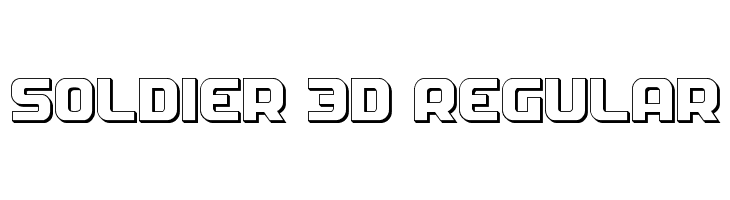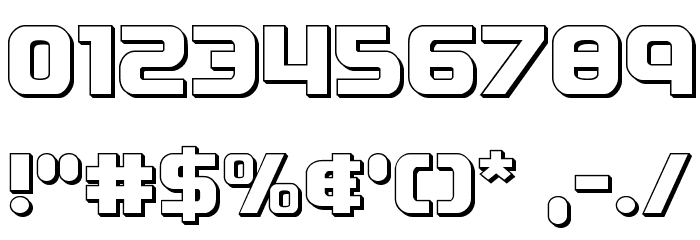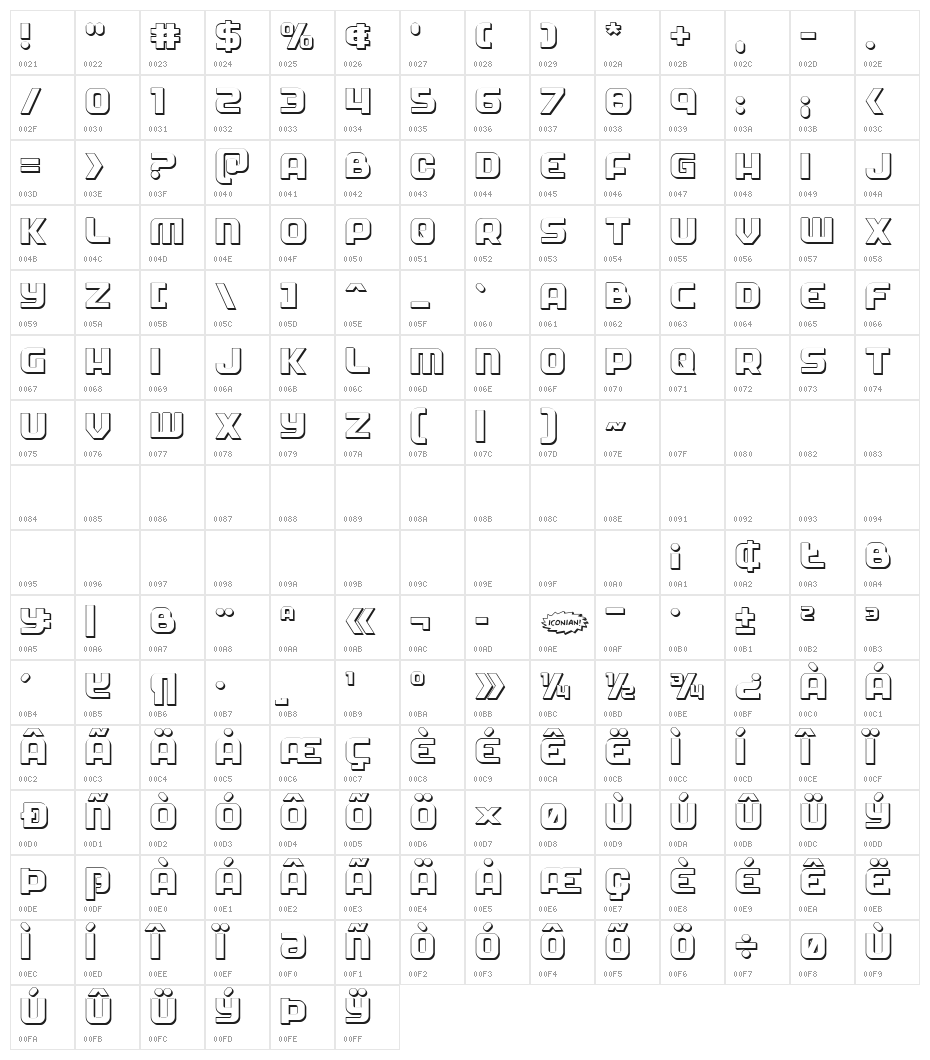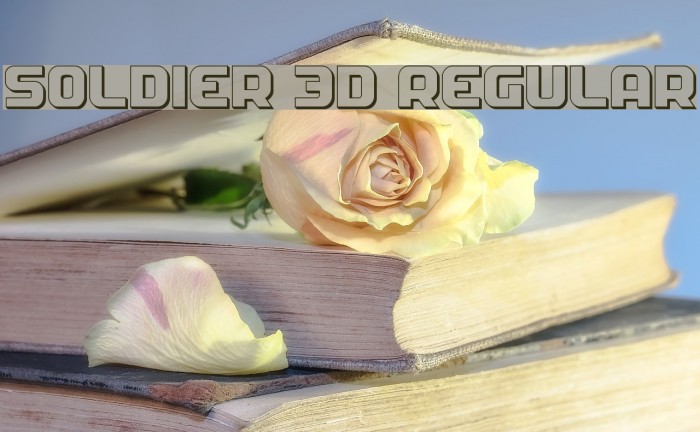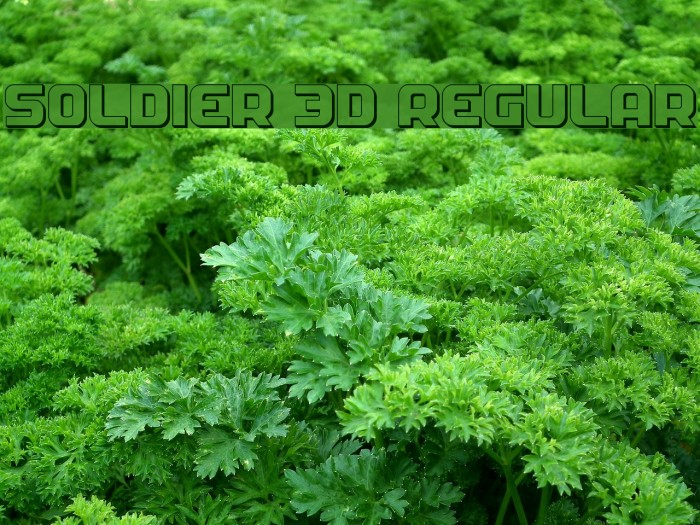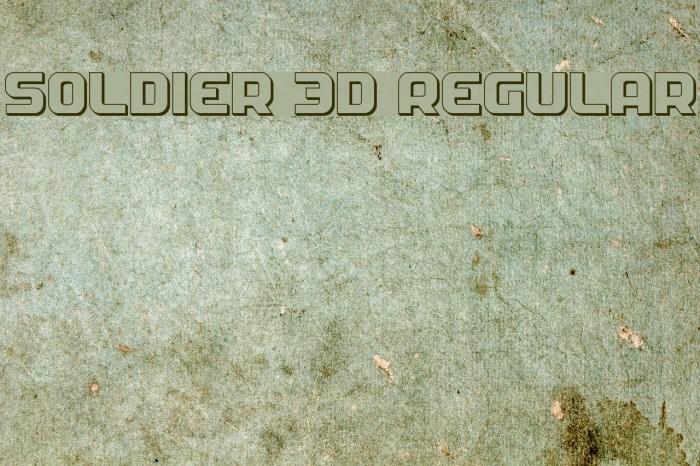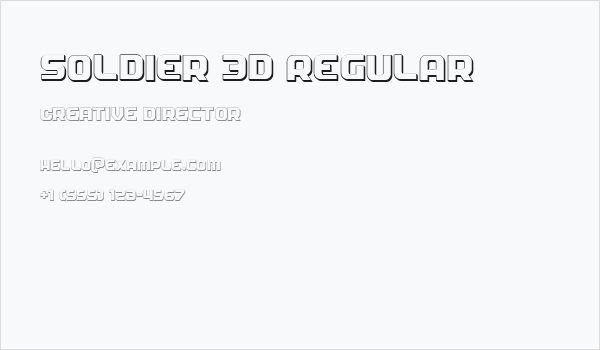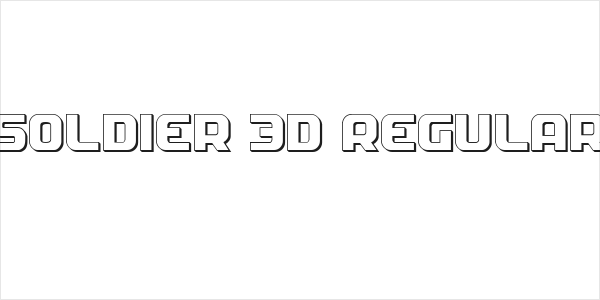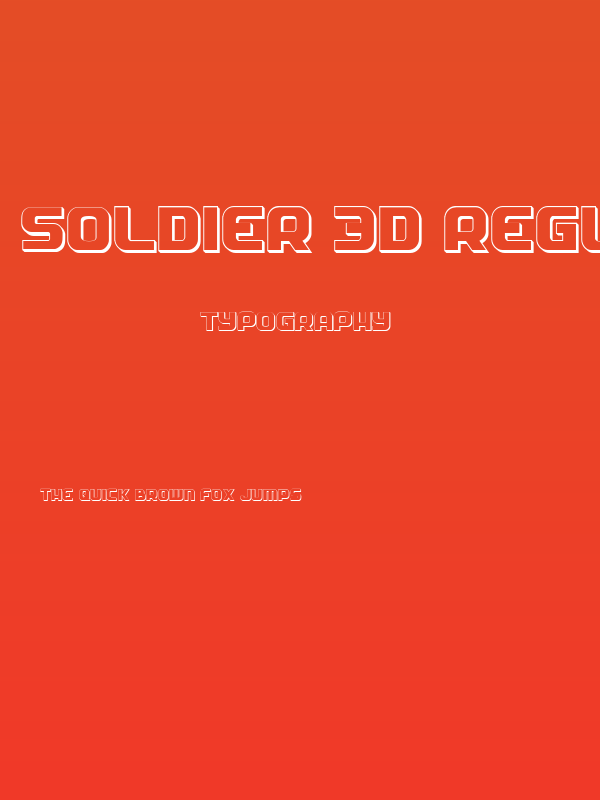
Soldier 3D Regular Font
Soldier 3D Regular Description
This font features a bold, three-dimensional design with a futuristic and geometric aesthetic. The characters are outlined, giving them a hollow appearance that emphasizes their structural form. Each letter is constructed with straight lines and sharp angles, creating a sense of precision and modernity. The uppercase and lowercase letters maintain a consistent style, while the numerals and special characters complement the overall design. The font's unique 3D effect makes it stand out, ideal for projects that require a strong visual impact.
| Proposed Projects | Ideal for sci-fi themed designs, video game titles, posters, and branding that requires a modern and impactful look. |